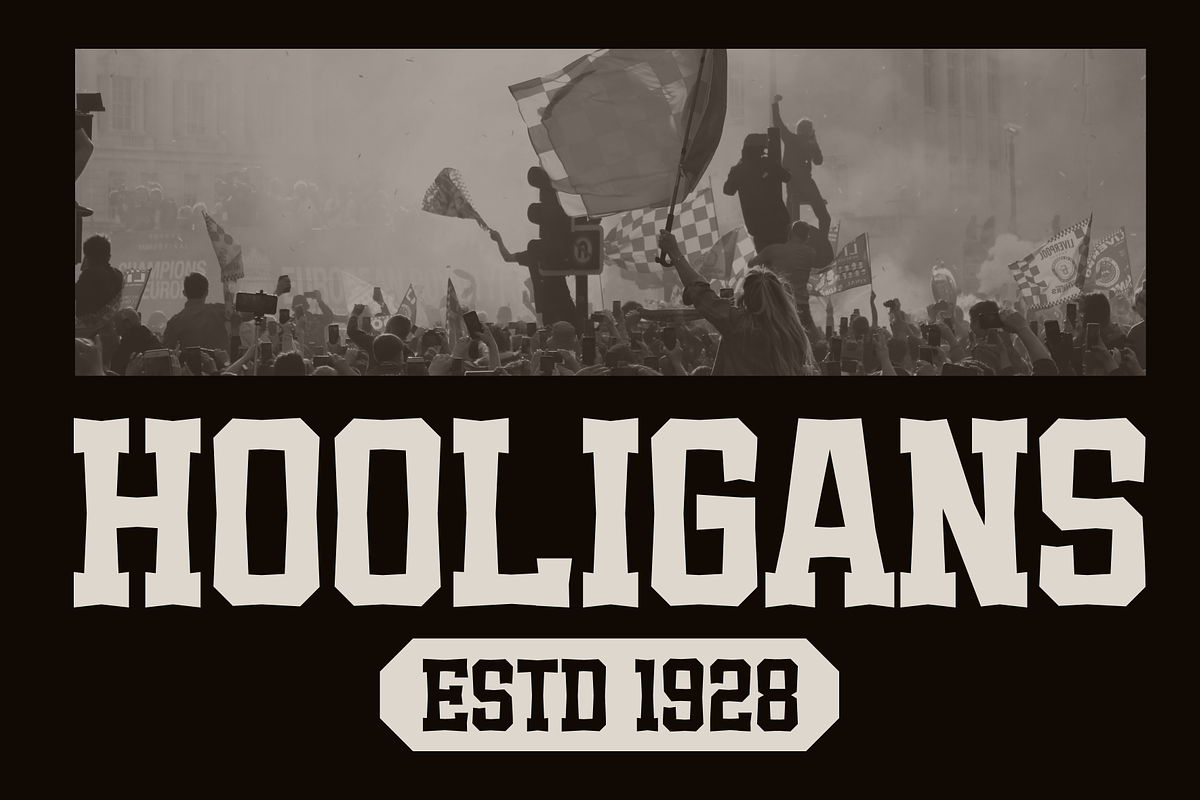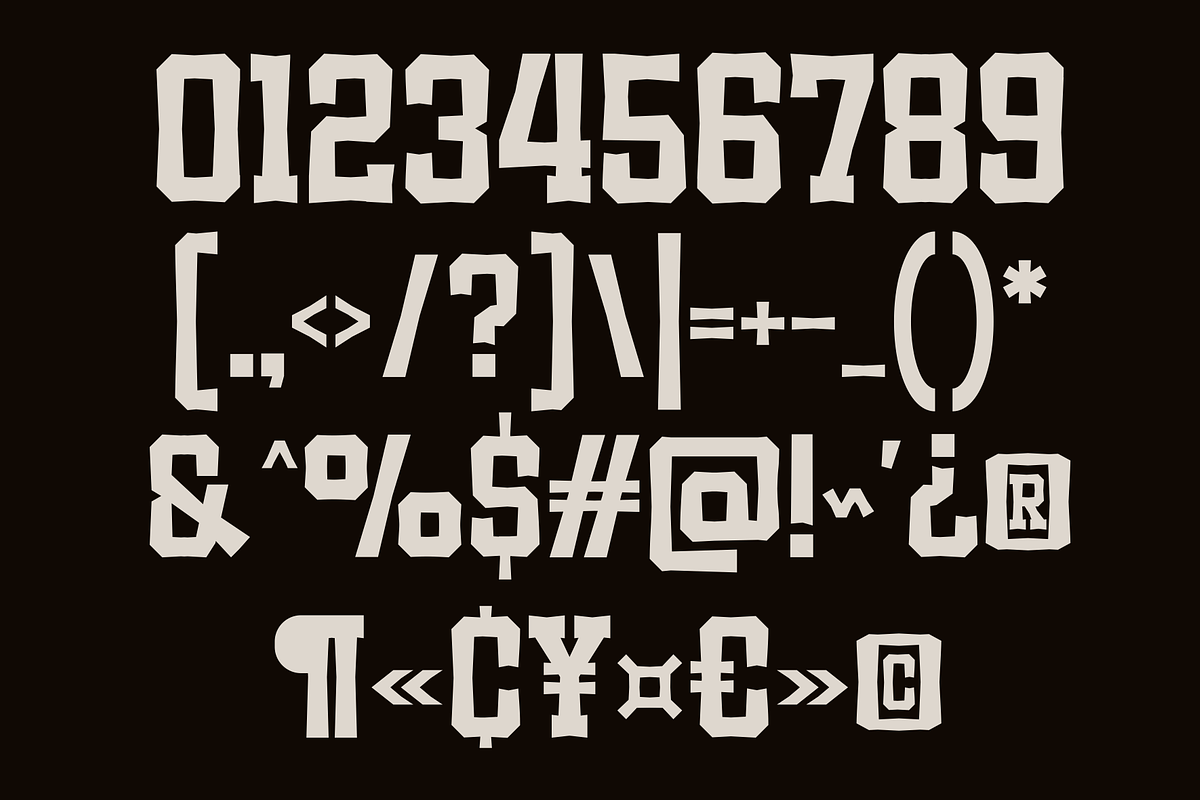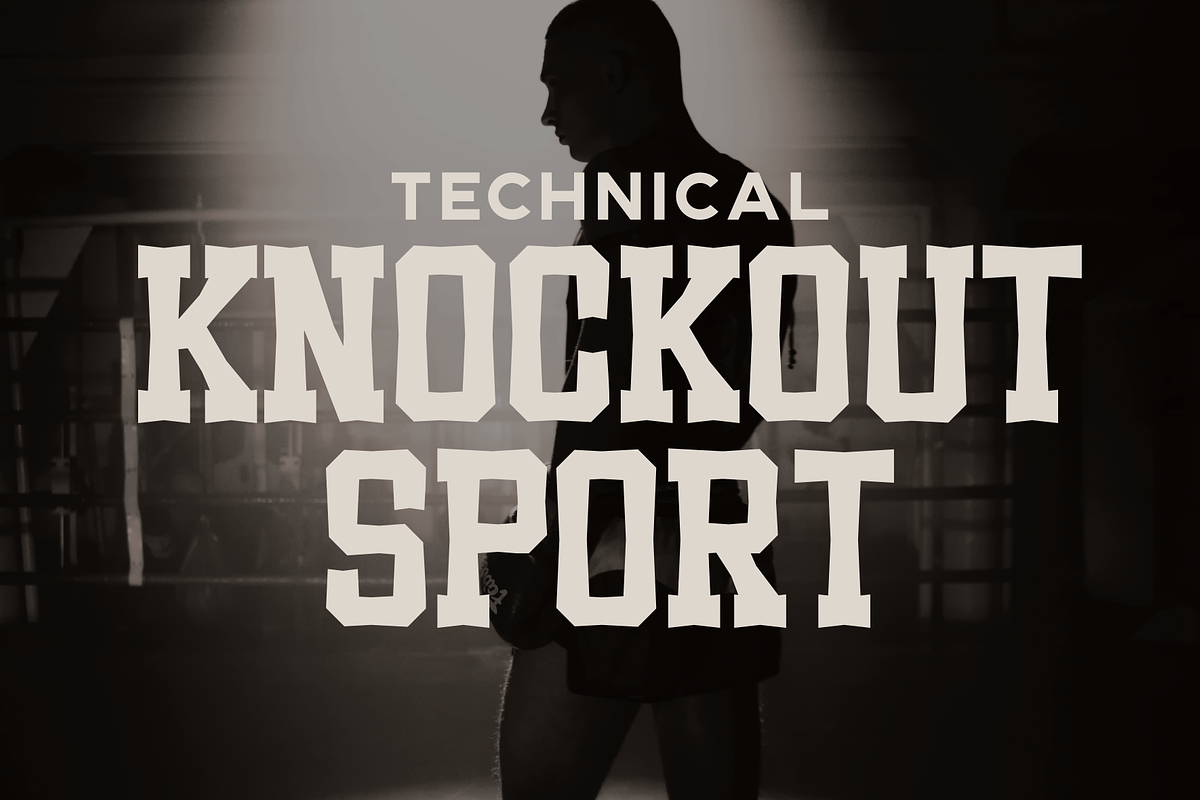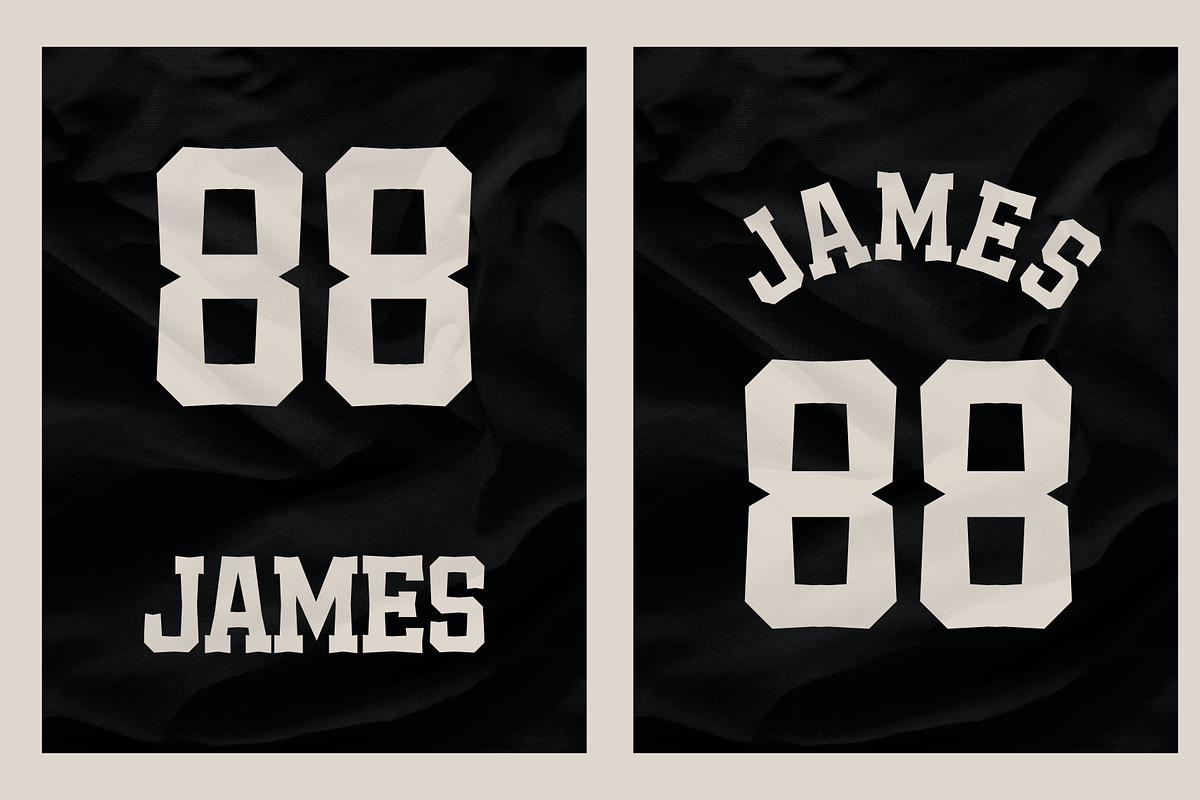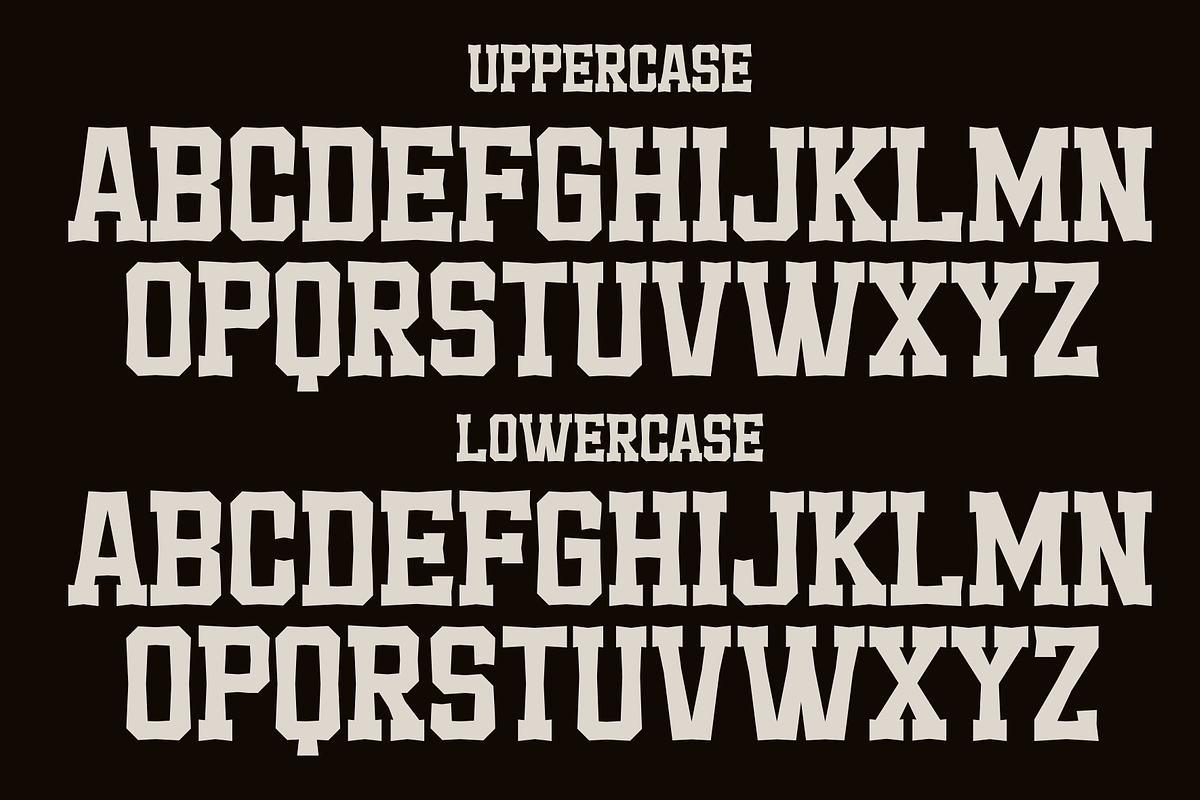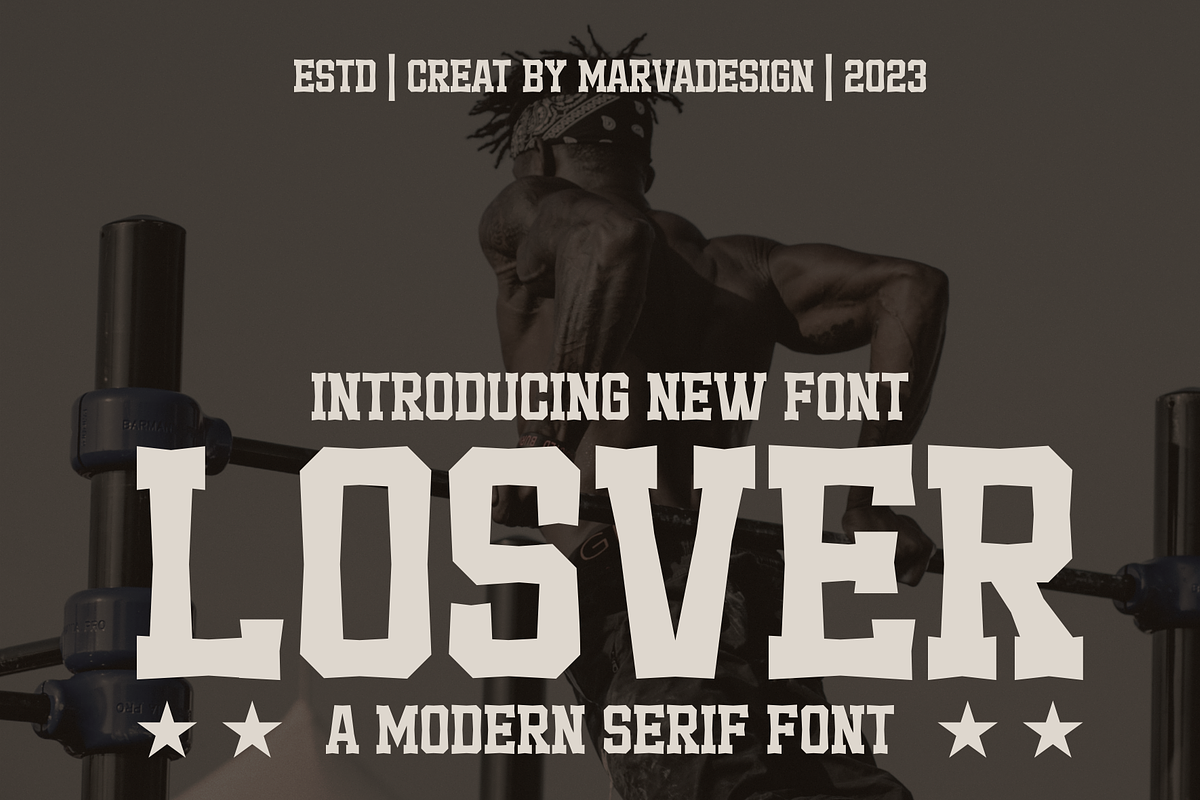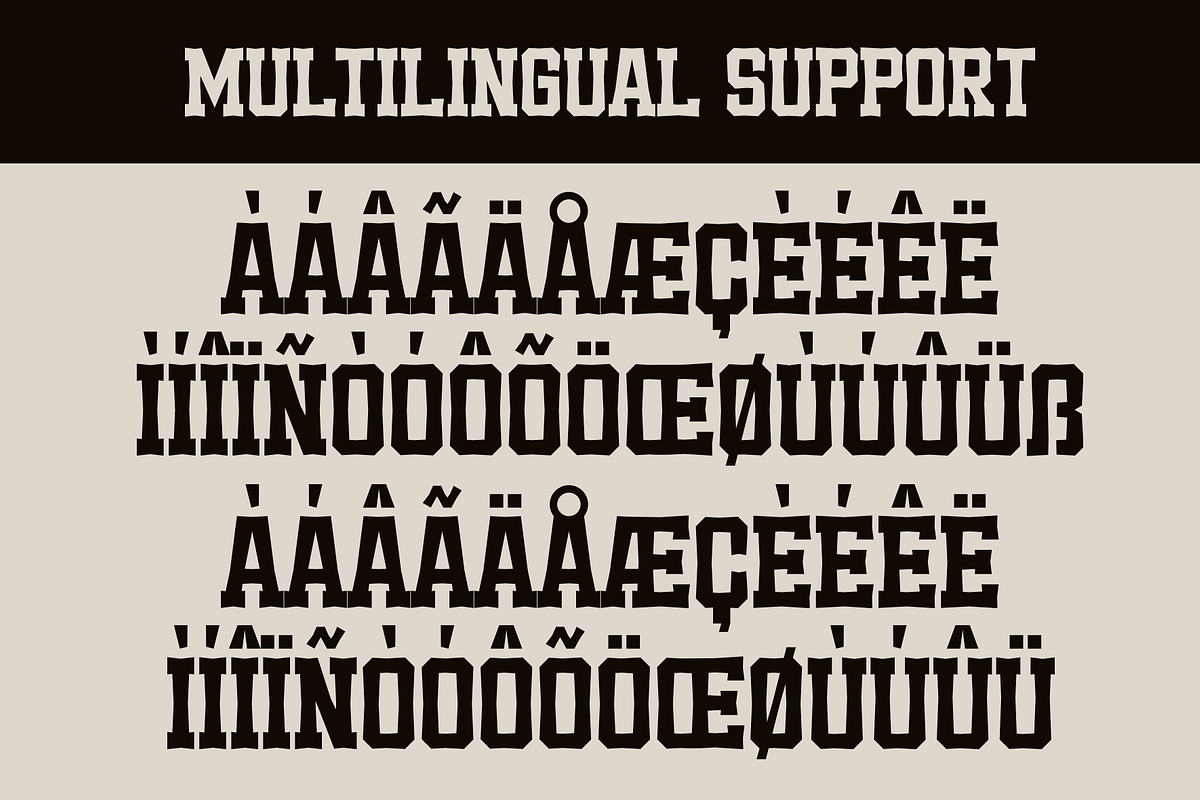
Losver - A Modern Serif
Introducing our new product Losver Font - Modern Font is a bold and authentic display font. The font is suitable for any branding project like logo, Template Design, Product and many more. outstanding in a wide range of contexts.